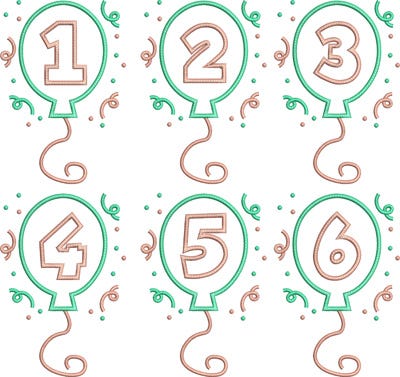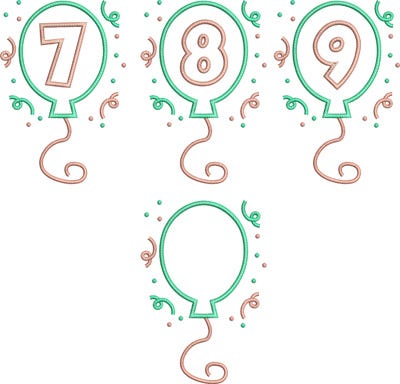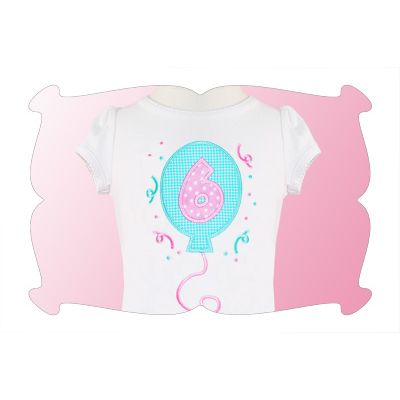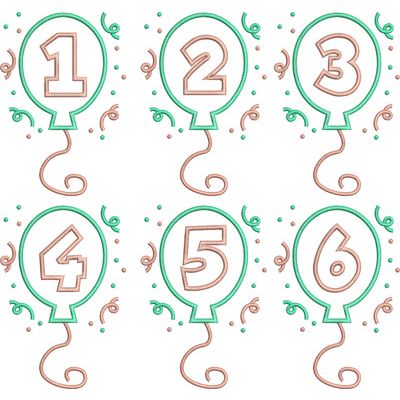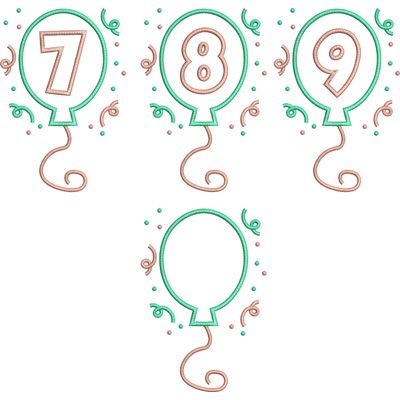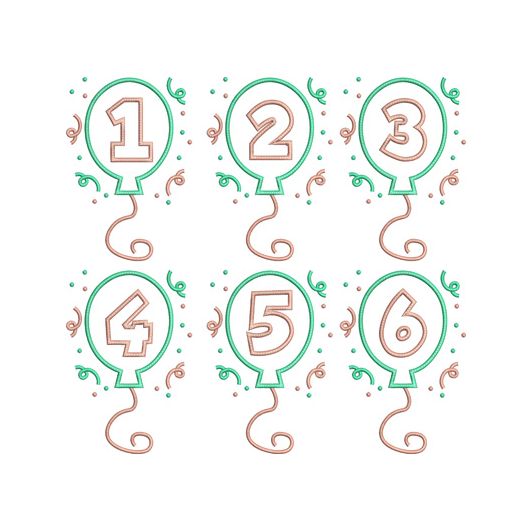
Birthday Balloon Applique Font
Perfect for the birthday girl!
Numbers 1-9 are included, plus a blank design for you to add your own personalization to.